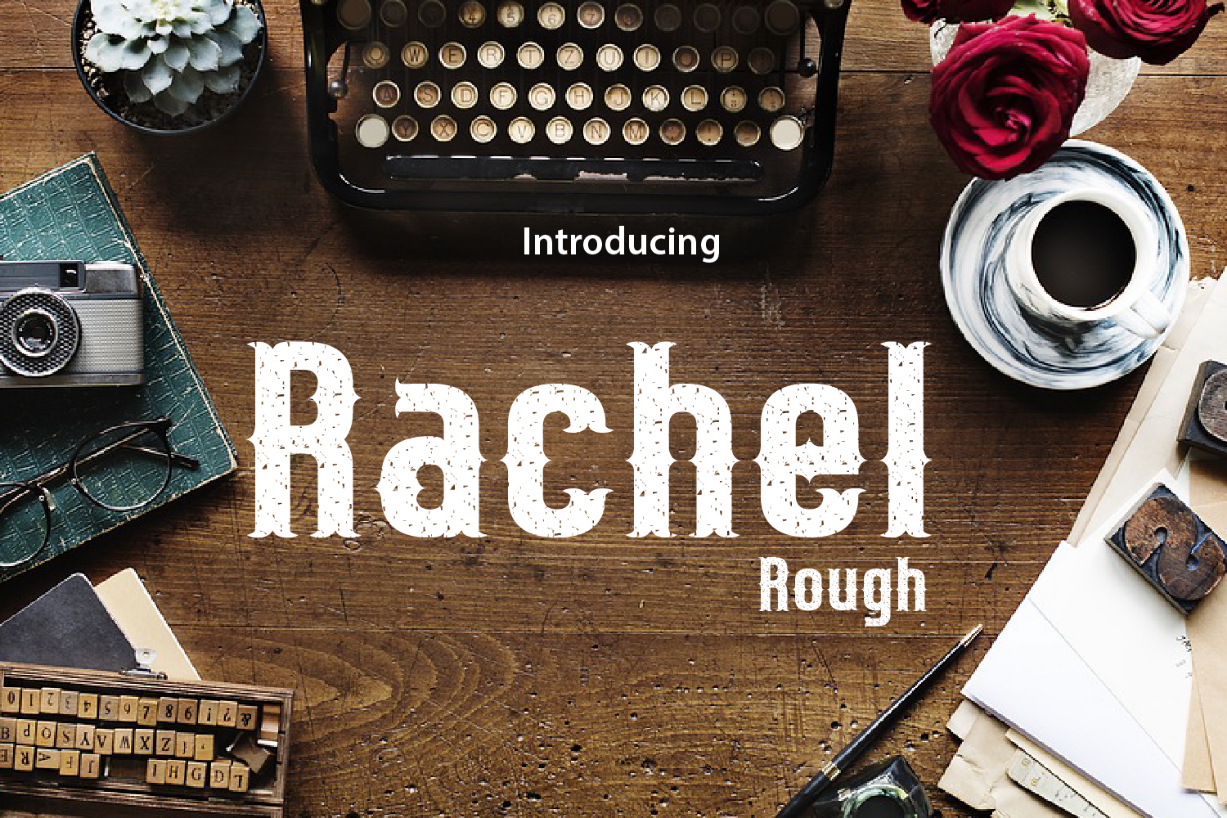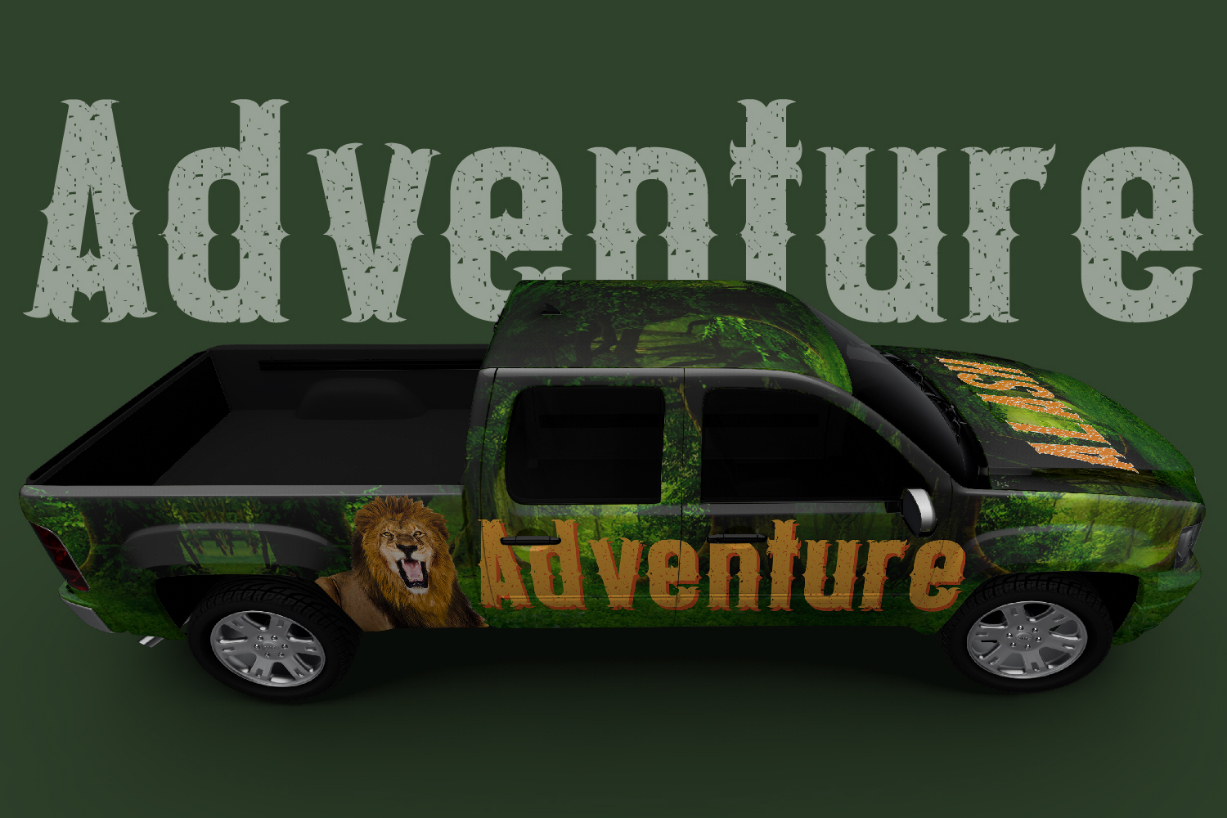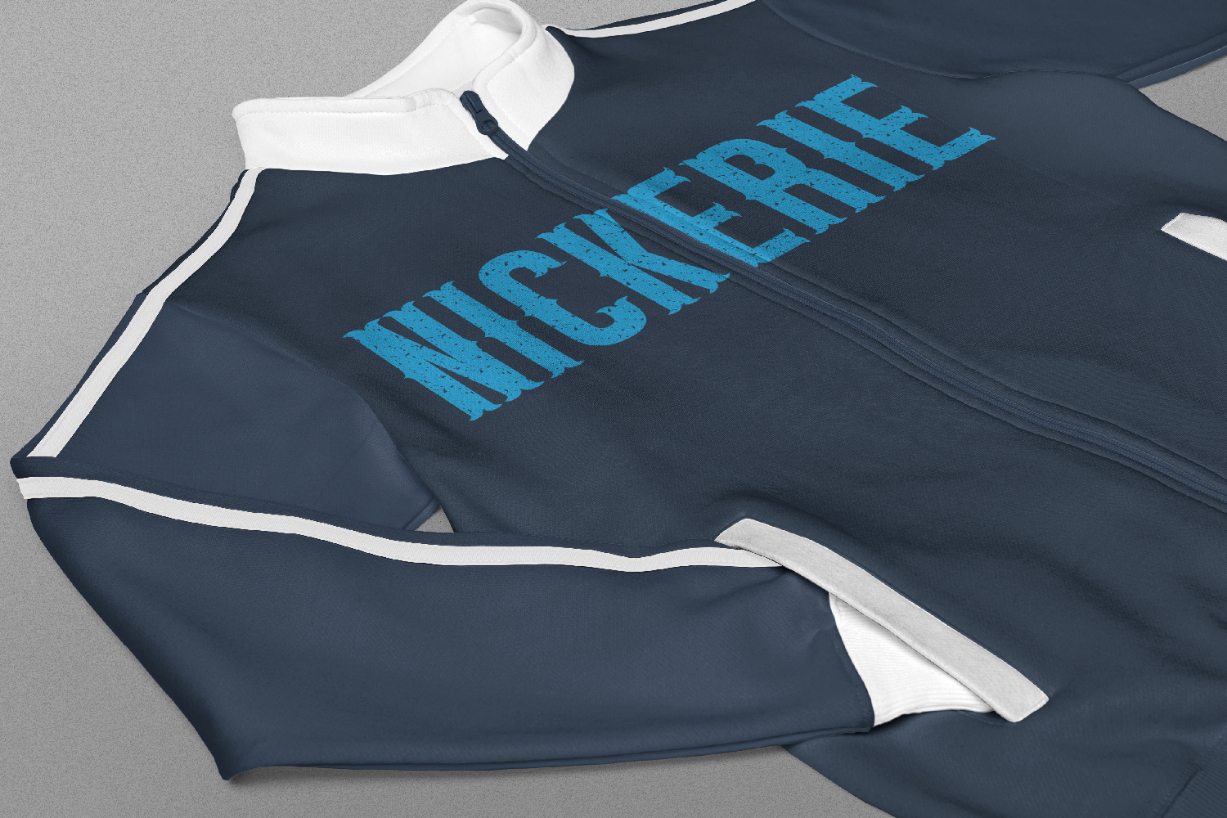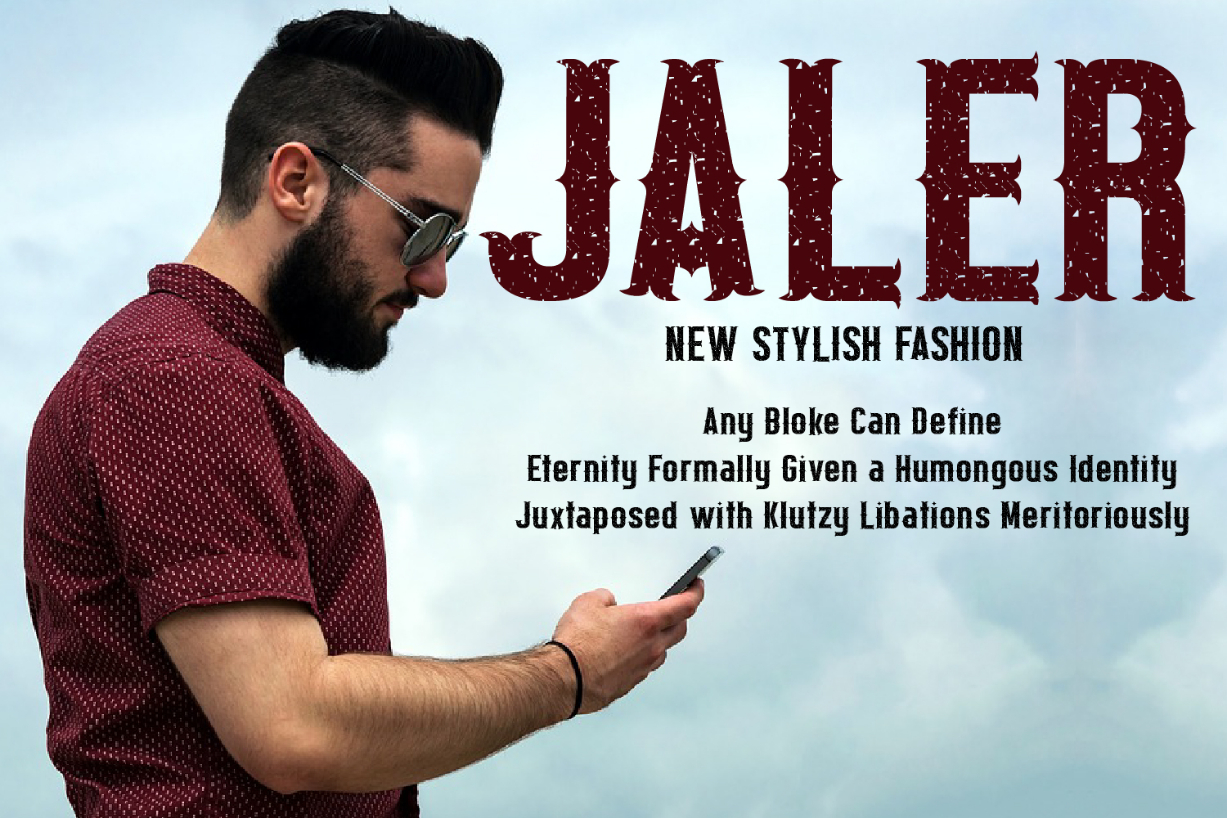
Rachel Rough Font
About Rachel Rough Font
Rachel Rough is a bold and authentic blackletter font. It celebrates abstract shapes in all their eclectic brilliance. Add this font to your creative ideas and notice how it will make them stand out!